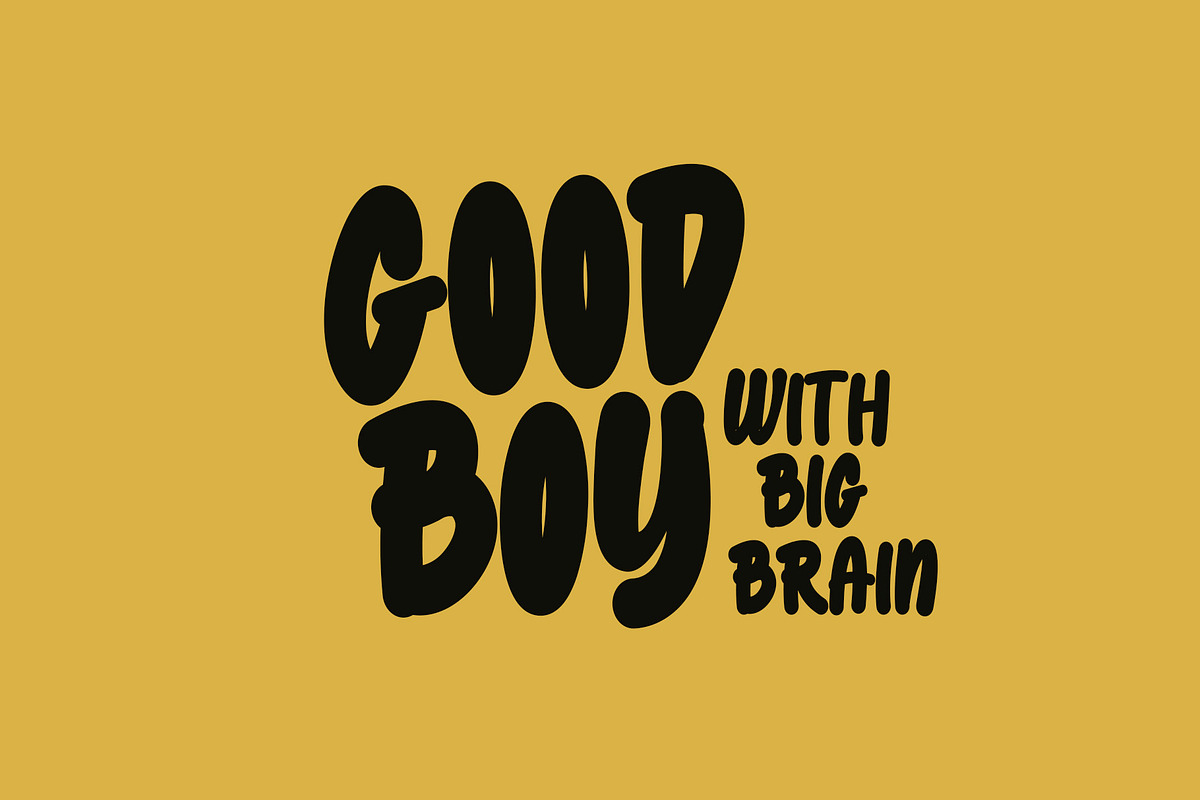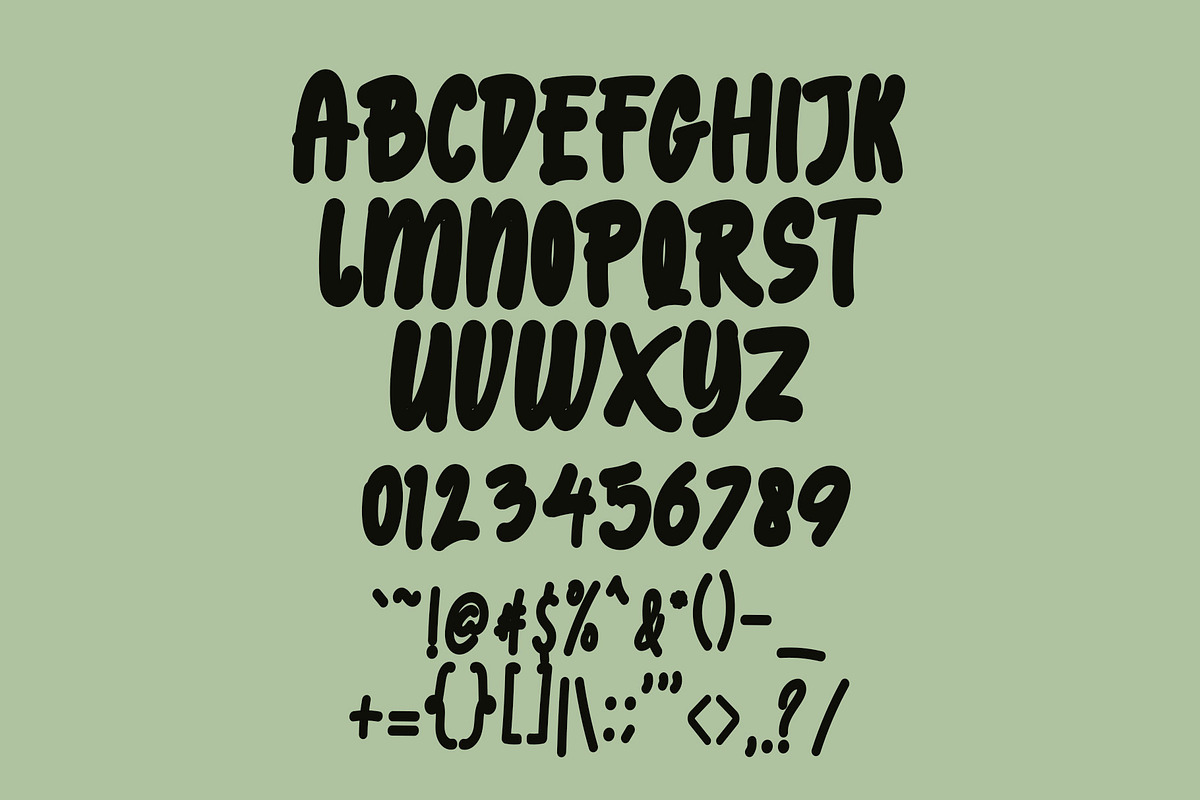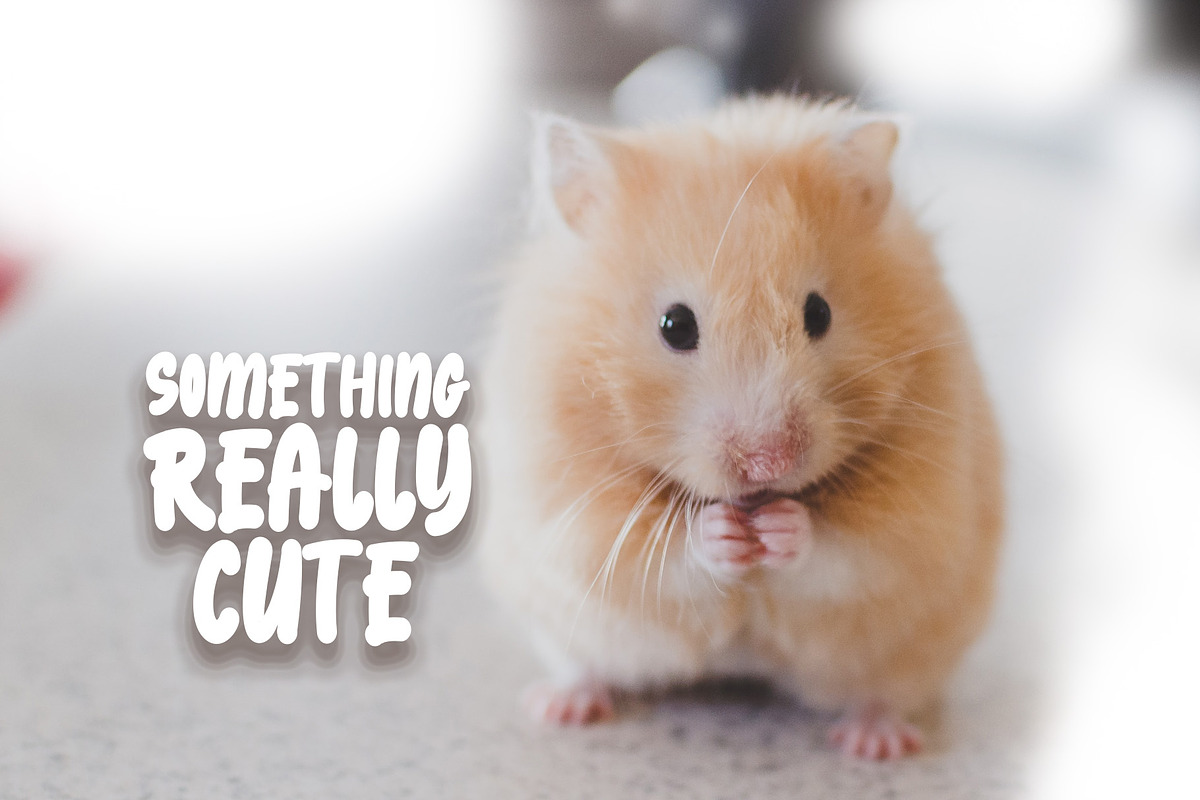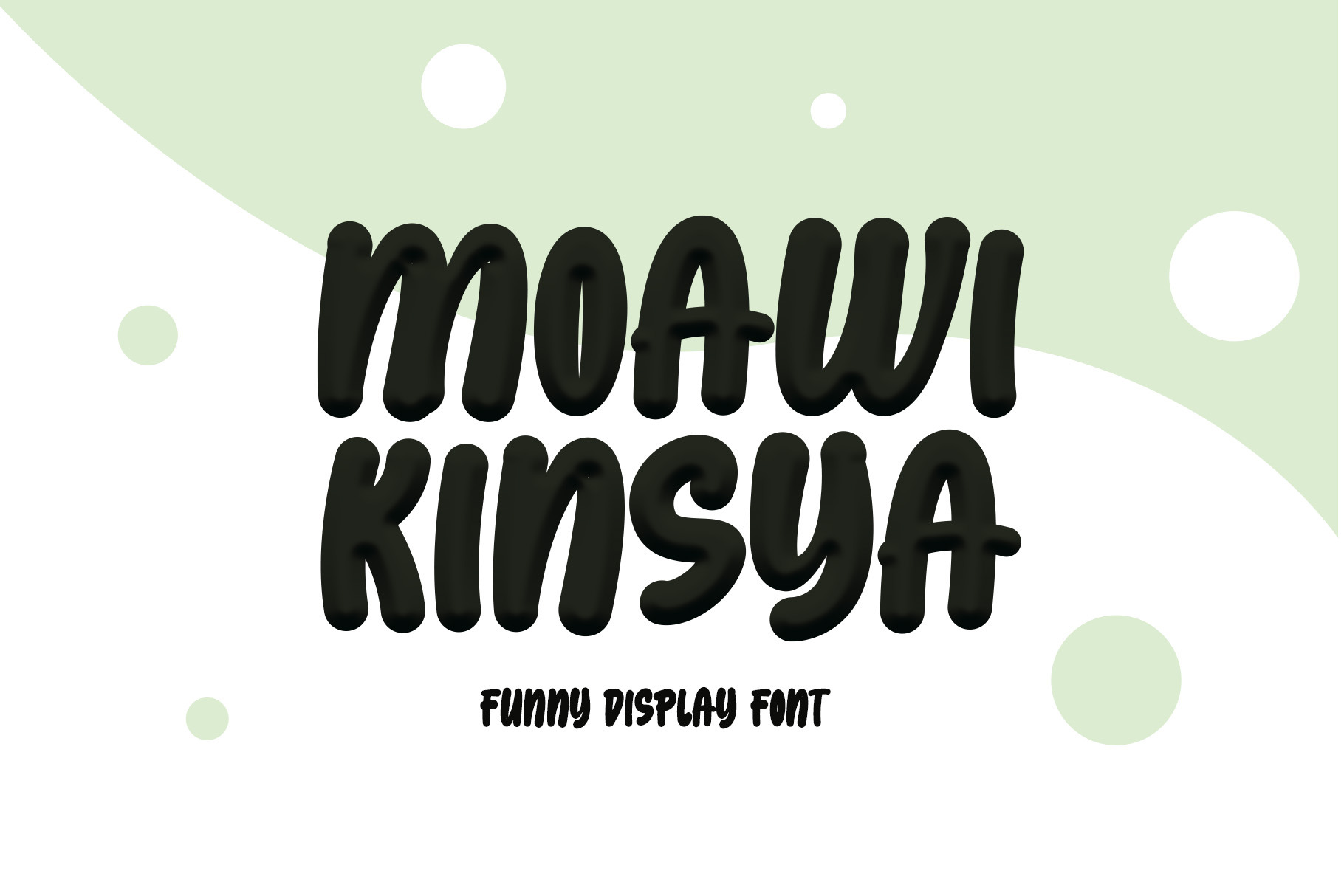
Moawi Kinsya - Display Font
Introducing Moawi Kinsya, a Funny and kid display Font. So perfect for you who needs a typeface for logo designs, magazine, social media, brochure, and many more.